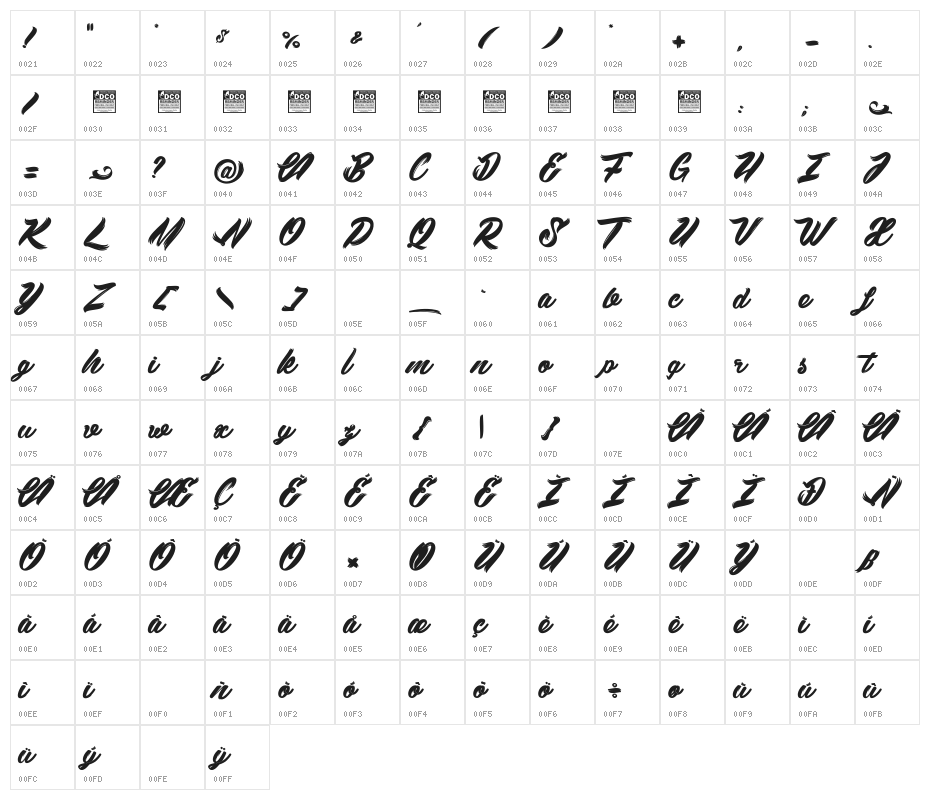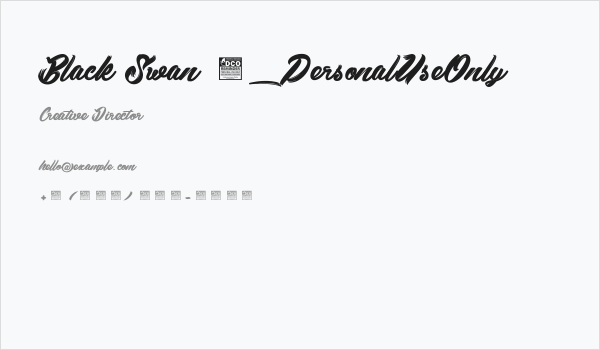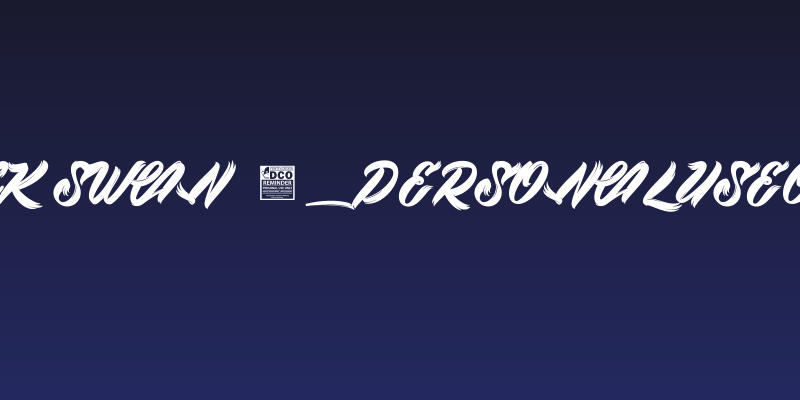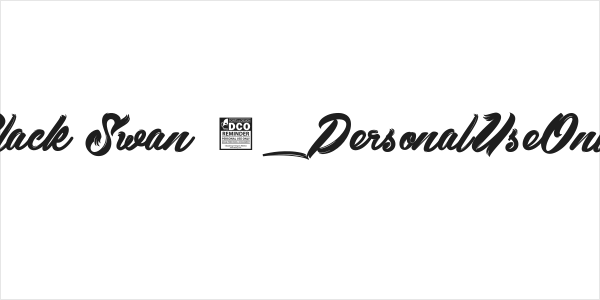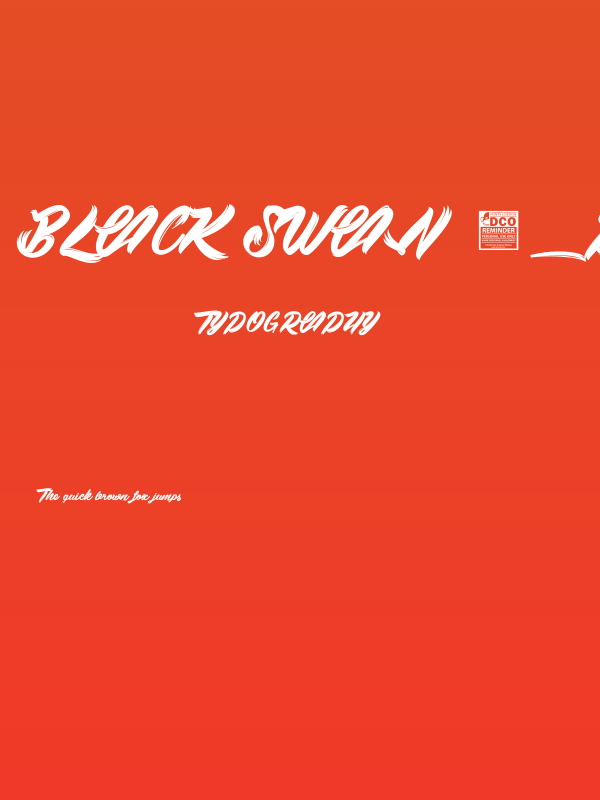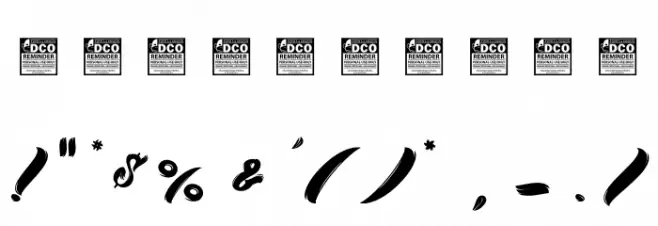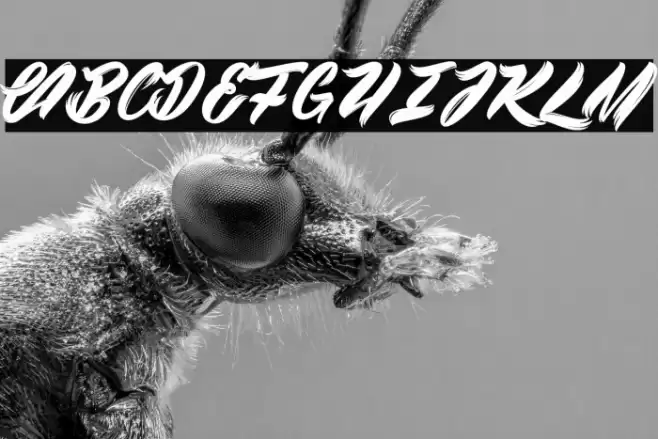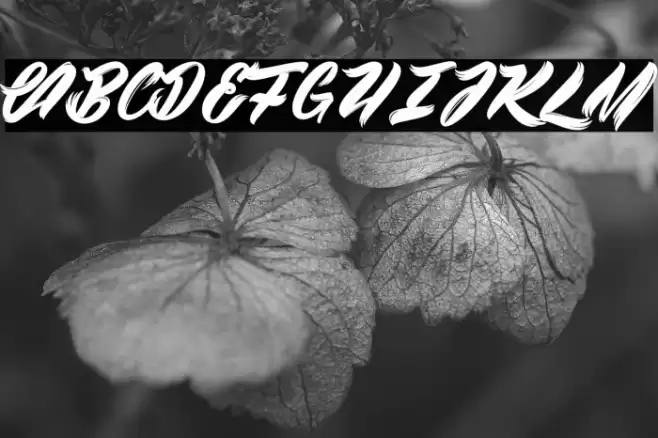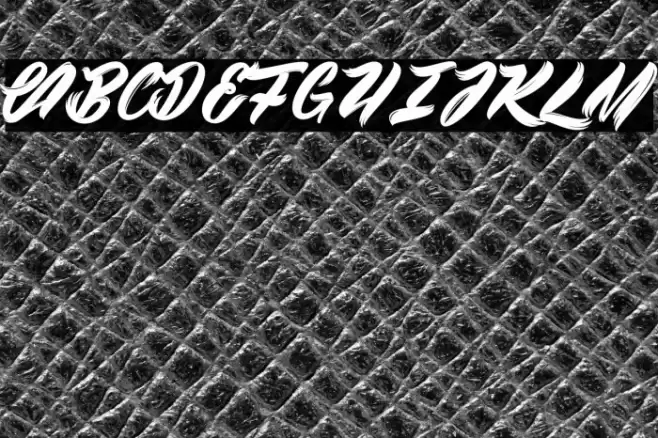
Black Swan 2_PersonalUseOnly Font
This font features a bold, brush script style with a dynamic and flowing appearance. The strokes are thick and expressive, giving each letter a sense of movement and energy. The uppercase and lowercase letters maintain a consistent style, with sweeping curves and sharp edges that create a dramatic effect. The font includes a full set of numerals and a selection of special characters, all designed to complement the overall aesthetic. The brush-like texture adds a handcrafted feel, making it suitable for projects that require a personal touch or artistic flair.
| Proposed Projects | Ideal for branding, logos, posters, and invitations where a bold, artistic statement is desired. |